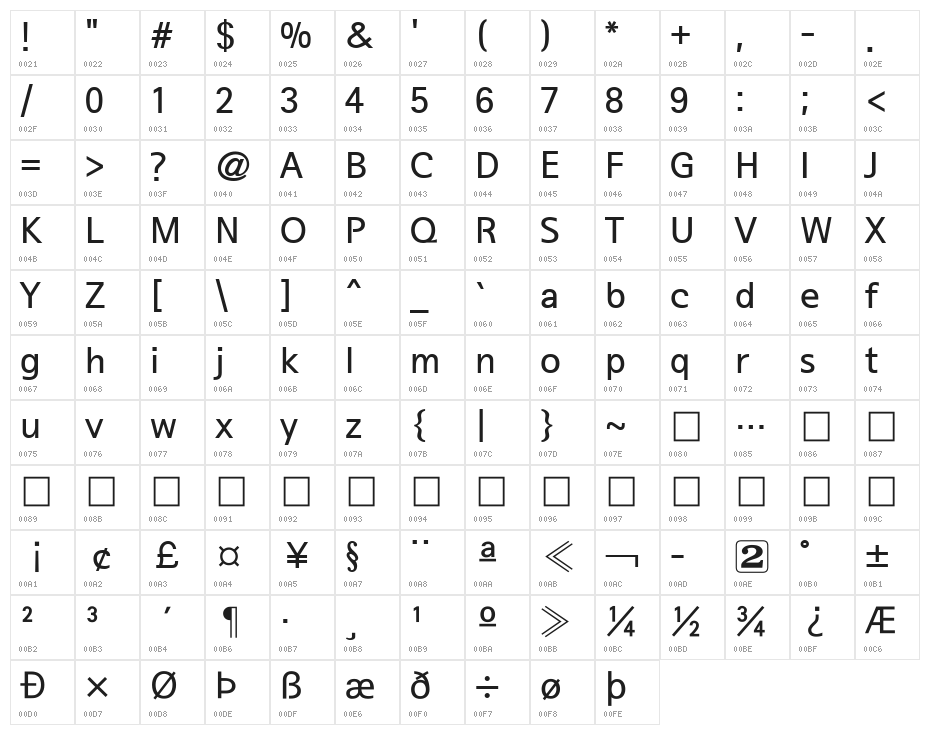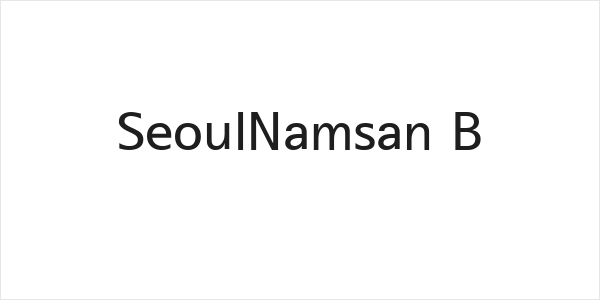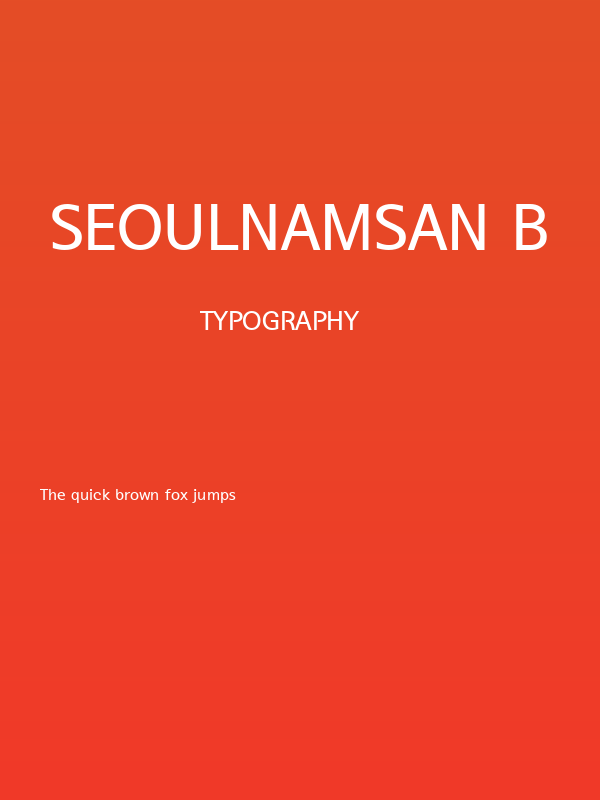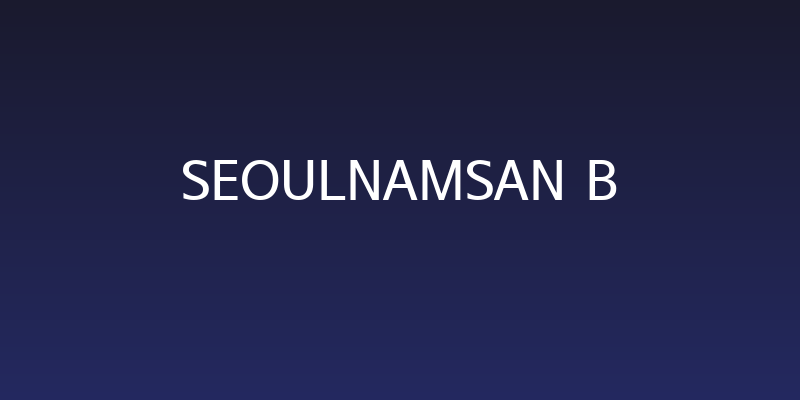
SeoulNamsan B Font
SeoulNamsan B Description
This font features a clean and modern sans-serif design with a straightforward and highly legible appearance. The characters are uniformly structured, offering a balanced and harmonious look. The uppercase letters are bold and commanding, while the lowercase letters maintain a consistent flow, enhancing readability. Numbers are clear and distinct, making them suitable for a variety of applications. Special characters are well-integrated, maintaining the font's overall aesthetic. The design is versatile, making it suitable for both digital and print media.